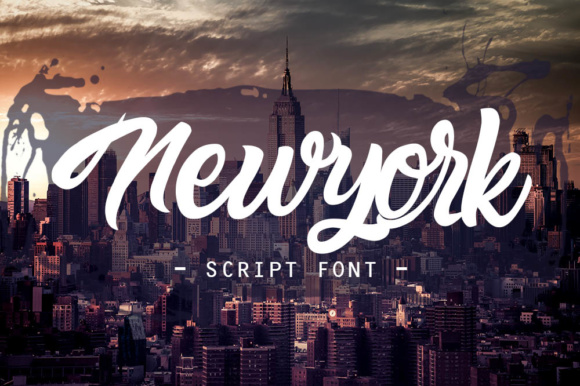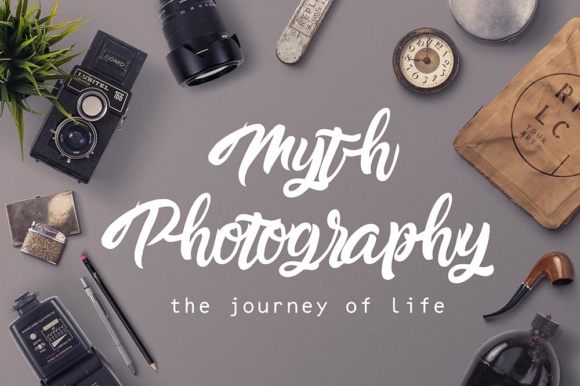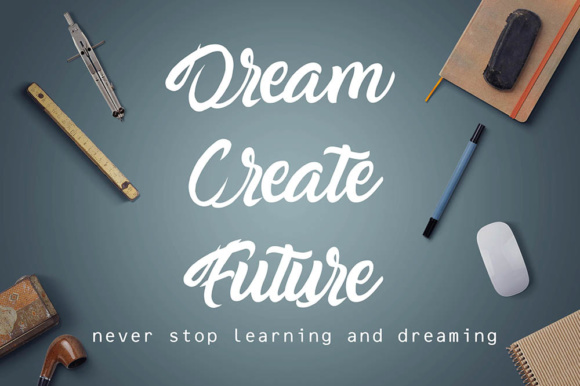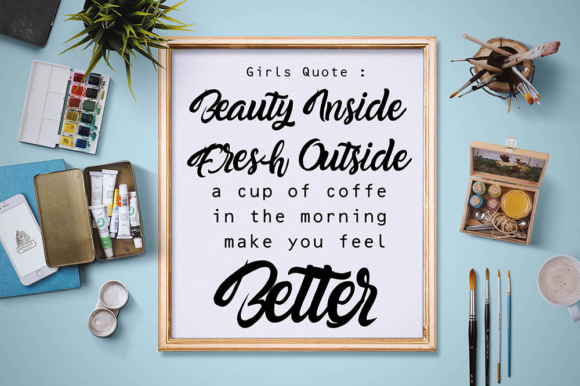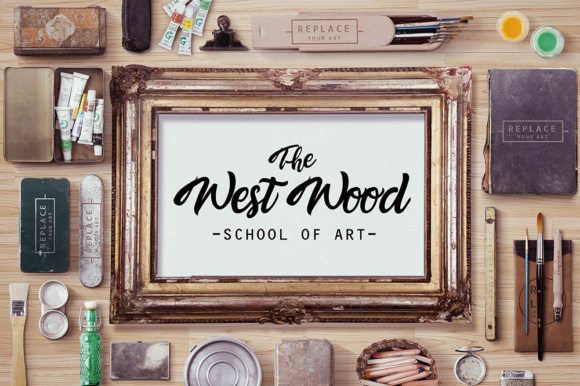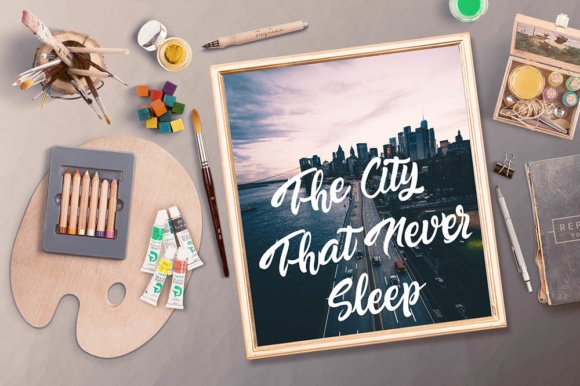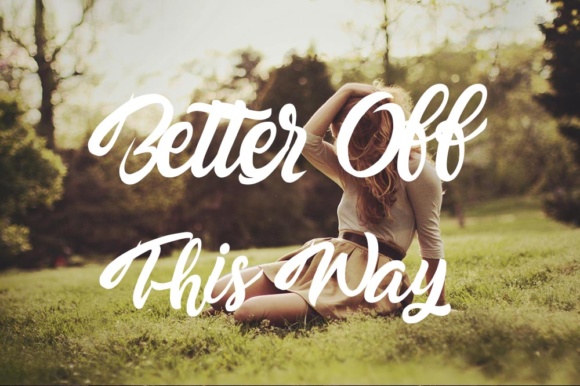
Newyork Script Font
About Newyork Script Font
Newyork is a handmade script font. It has thick but elegant letters which can be used for every design that needs a striking look.